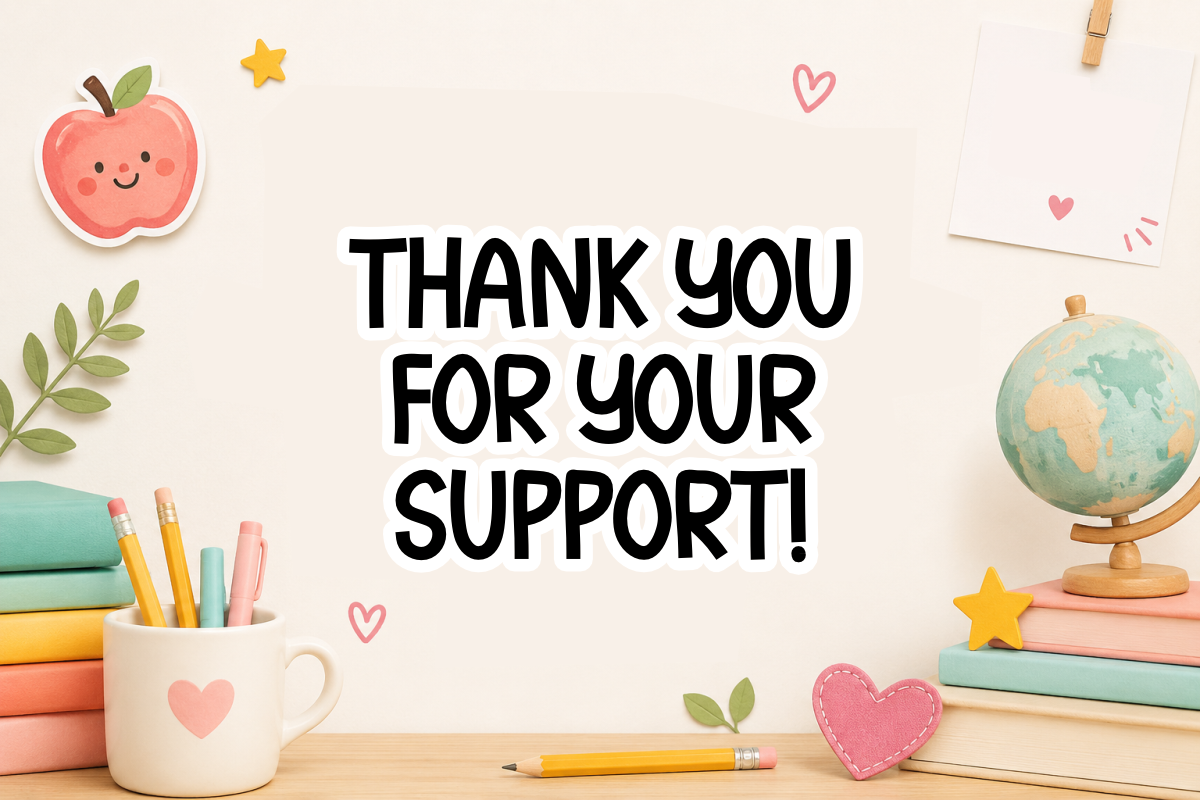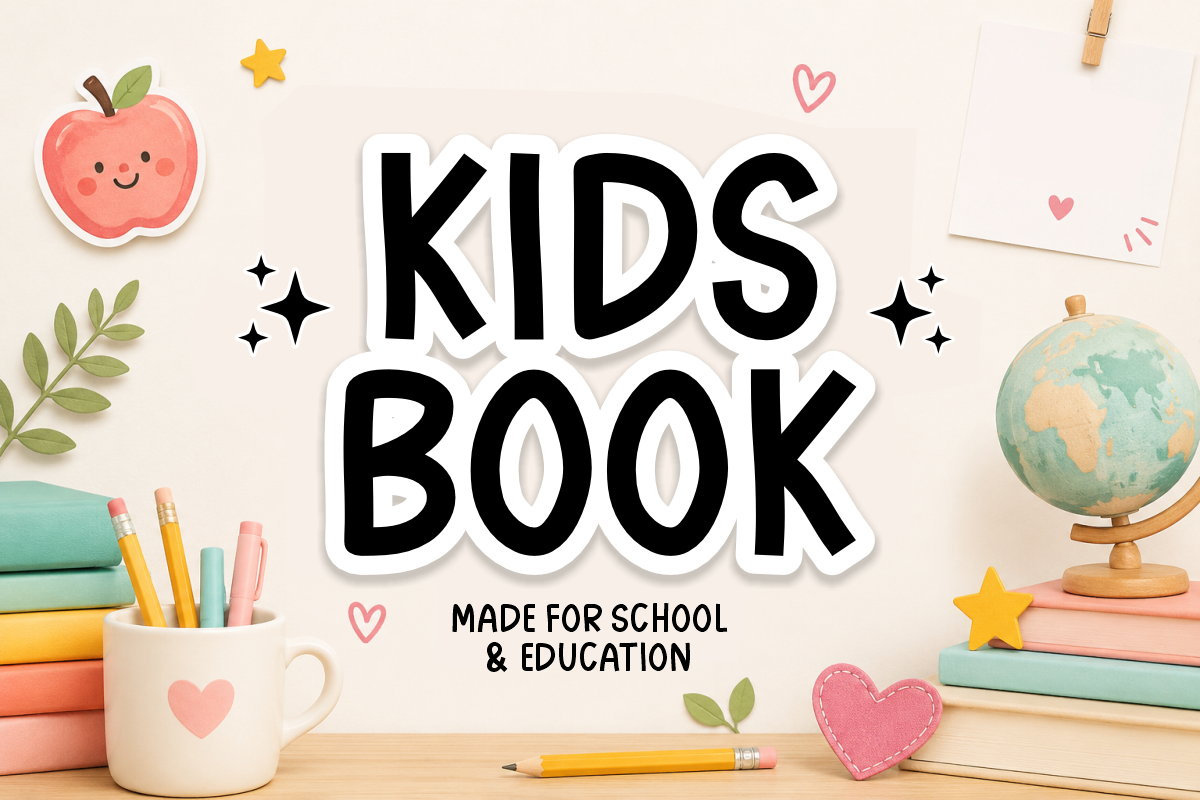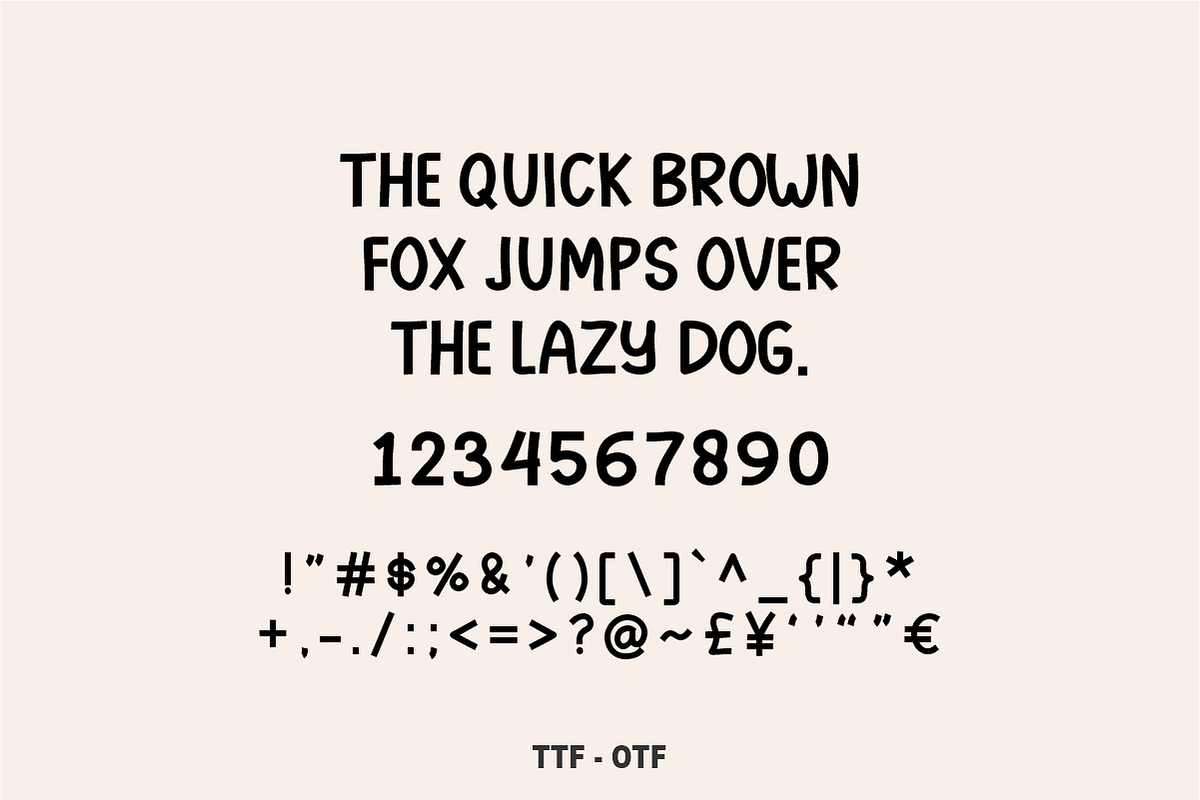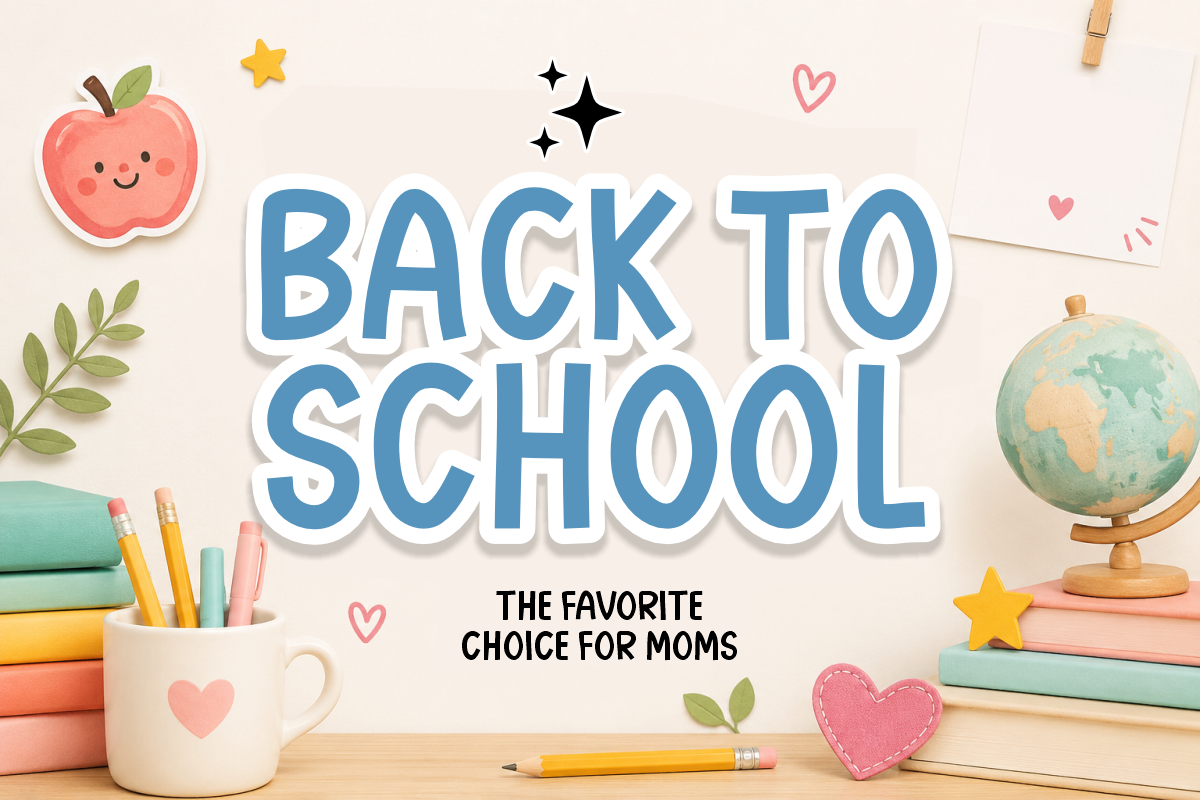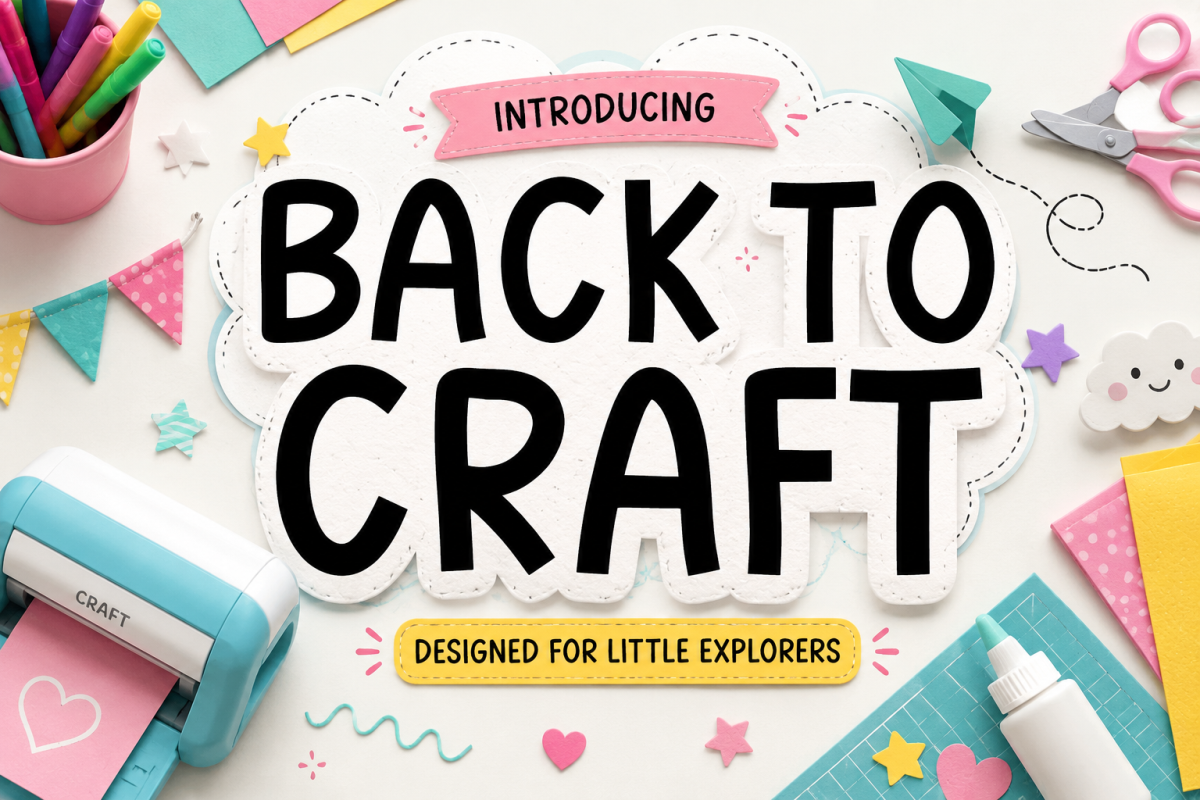
Back To Craft- Cute Handwritten Font
Back To Craft - Cute Handwritten Font
Back To Craft is a playful, handwritten display font featuring clean, friendly letterforms with an authentic papercraft feel. Overflowing with creative energy and back-to-school charm, this charming font is specially crafted for DIY projects, educational materials, and kids' craft creations. Every character is cleanly vectorized to guarantee high-resolution prints and smooth, effortless cutting on Cricut and Silhouette machines.
Uppercase Character Set
Numbers & Basic Punctuation
Ideal For: